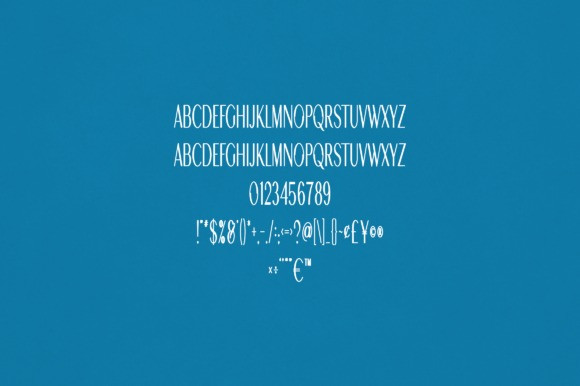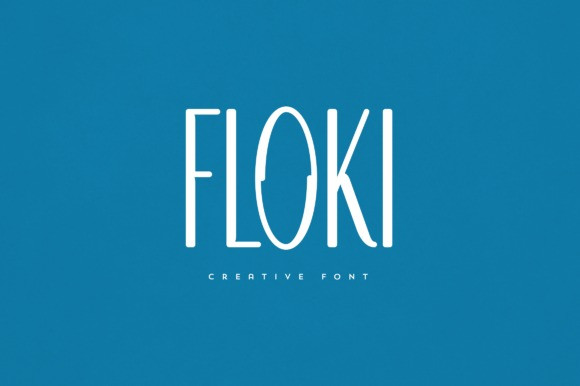
Floki Font
Floki Font is an elegant and versatile font that will make your typography truly unique! It will enchant every logo, branding, headline, or plain text!